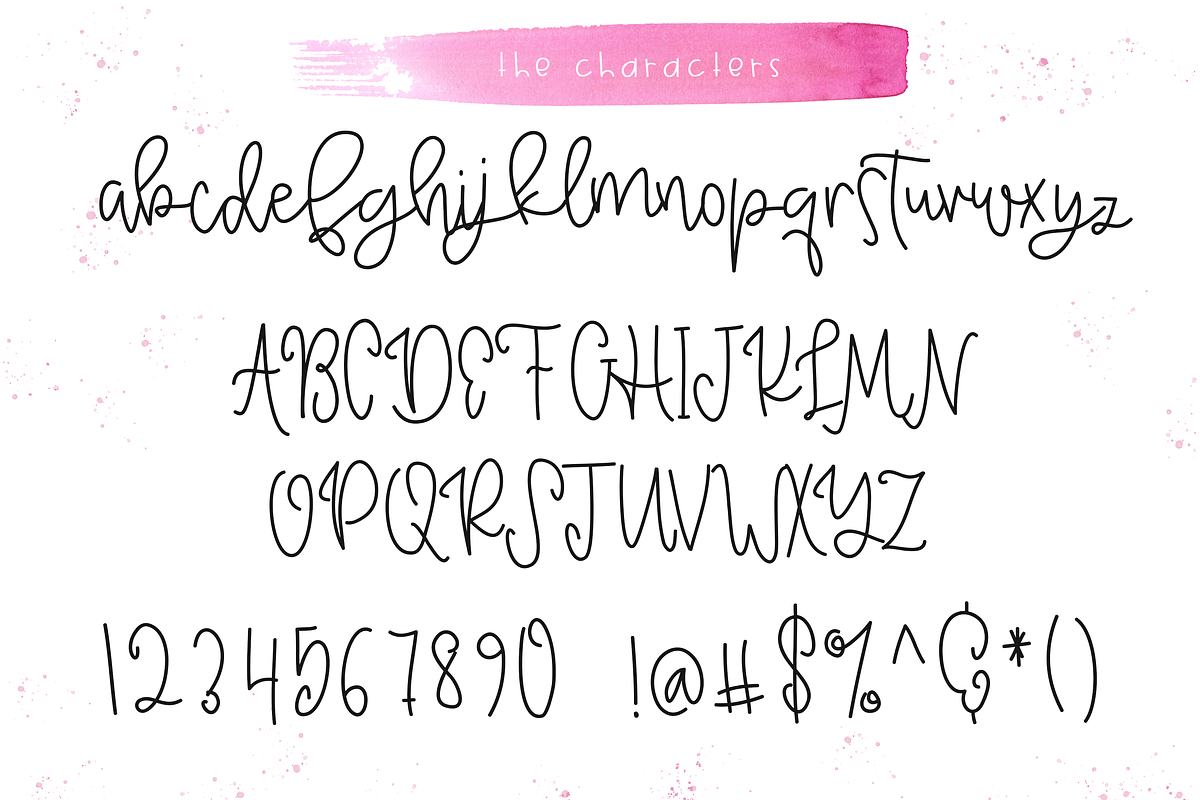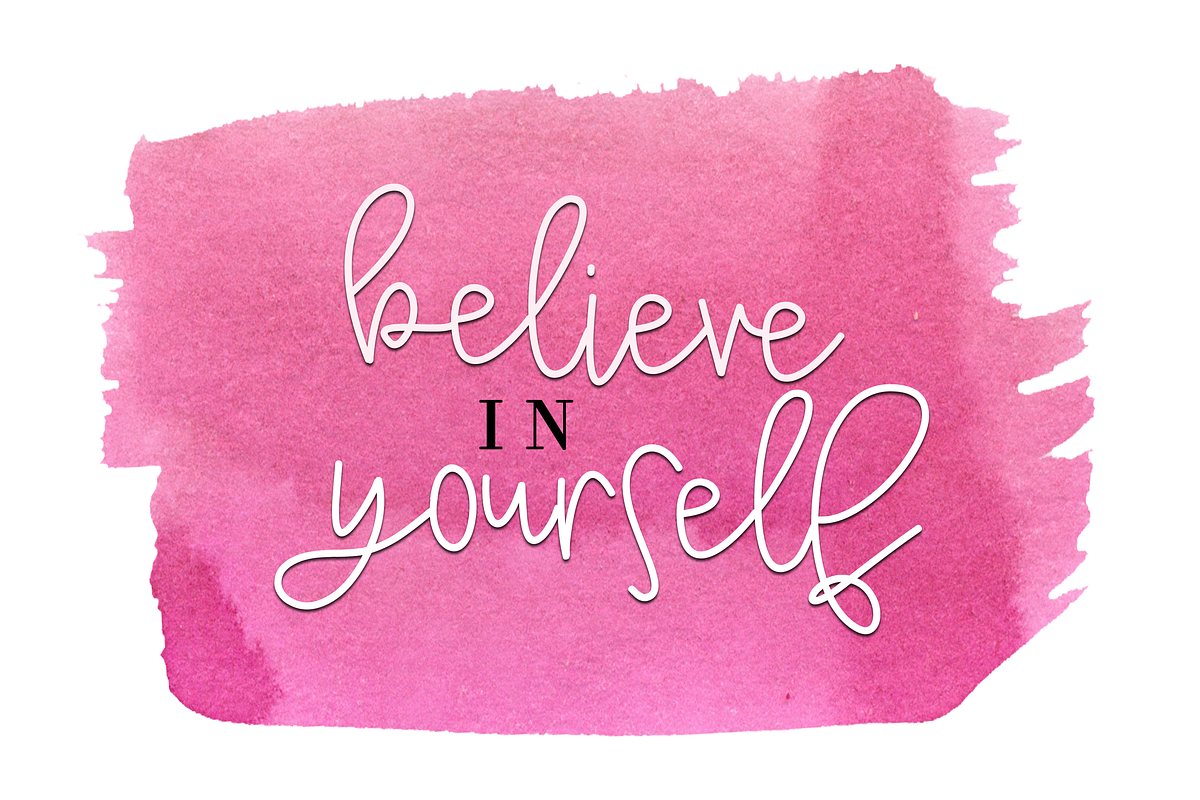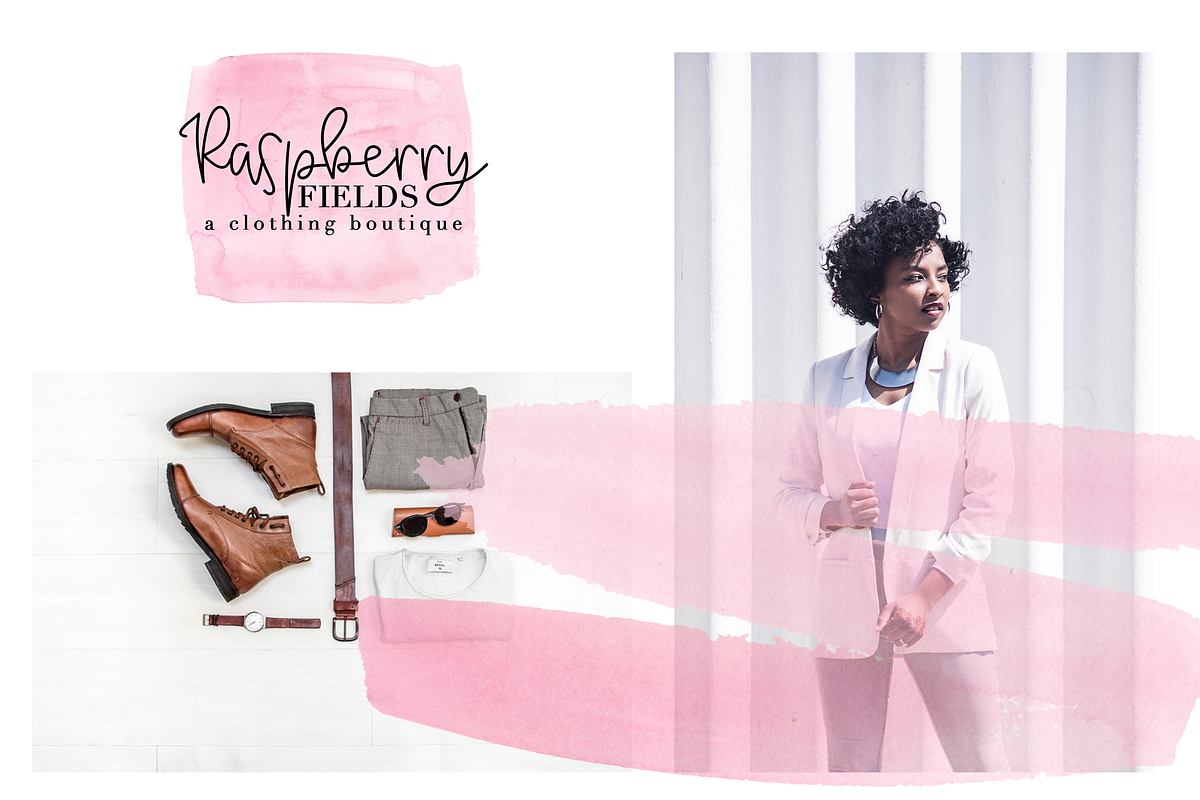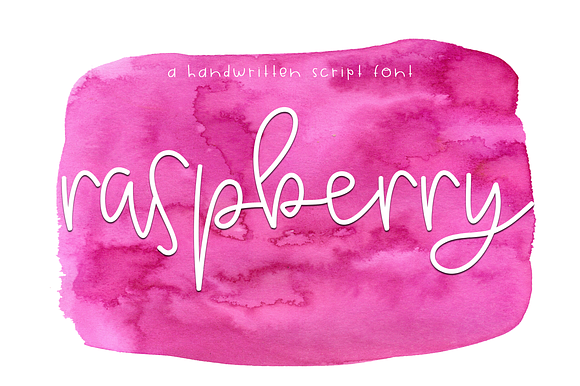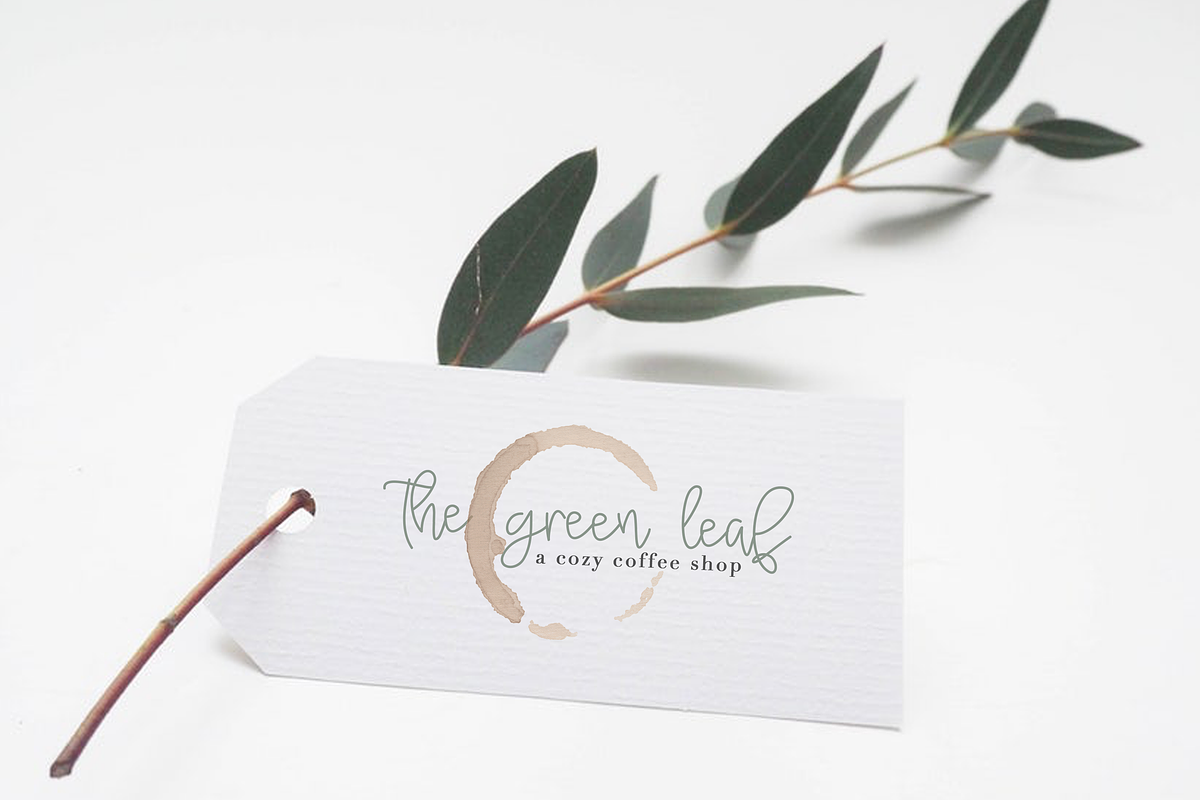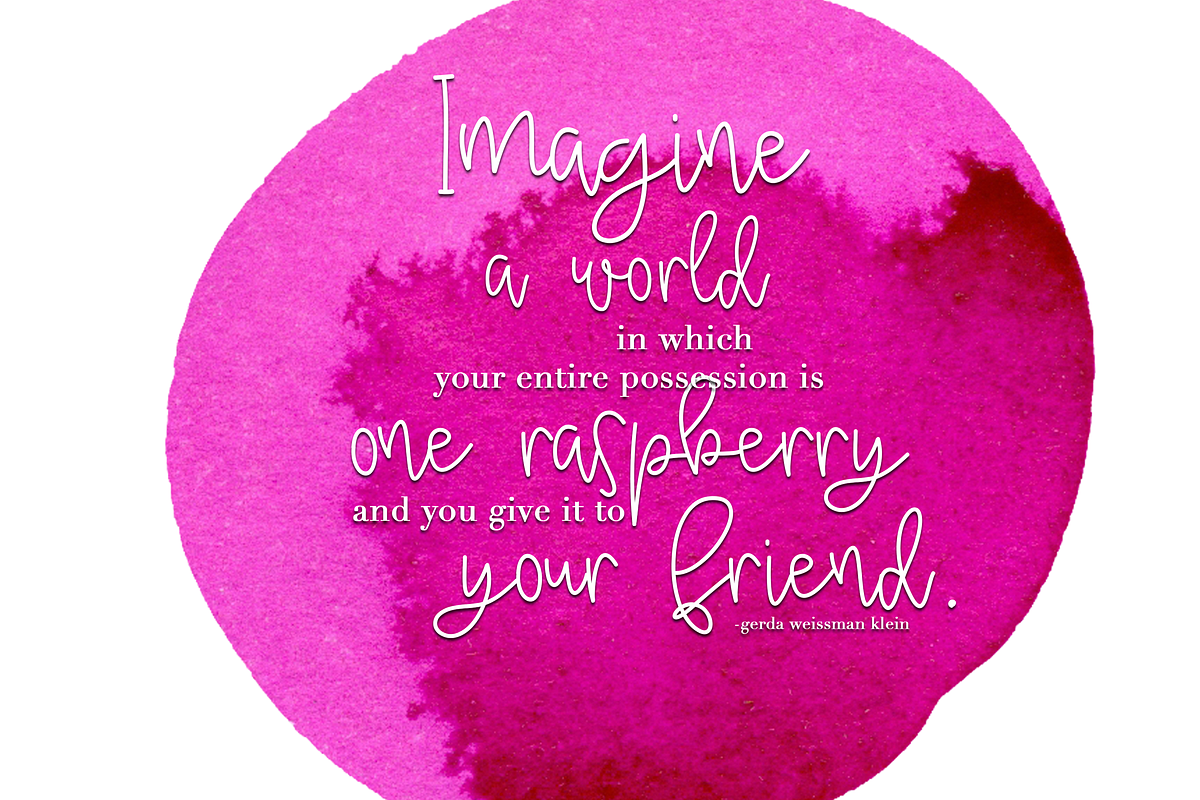
Raspberry - Handwritten Script Font
Raspberry is a unique handwritten script font. This font is perfect for quotes, headings, blogs, logos, invitations and more!